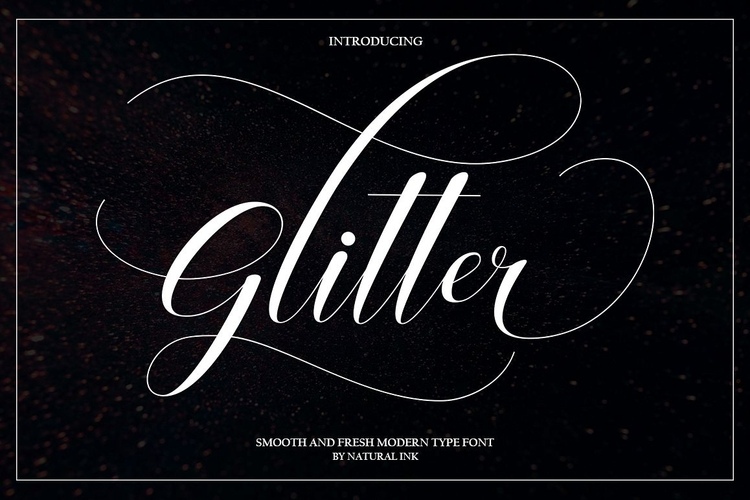
Glitter Script Font
Glitter Script Font is perfect for glamorous event invitations, sparkling celebration materials, luxury beauty brand campaigns, festive party promotions, dazzling fashion marketing, glittery product packaging, shimmering social media graphics, and radiant advertising projects. This dazzling typeface works beautifully in both digital applications and print media where sparkle and glamorous celebration are essential design elements.
What makes Glitter Script Font so exciting is its enchanting capture of celebratory glamour through flowing letterforms that seem to shimmer with the same magical sparkle and festive energy that transforms ordinary moments into extraordinary celebrations. The font features luminous characters with glamorous proportions, sparkling curves, and dazzling details that create an immediate atmosphere of joy, luxury, and celebratory excitement. Its radiant personality and festive inspiration make it ideal for brands seeking to communicate celebration, glamour, and the transformative power of special moments while appealing to audiences who appreciate glittering beauty and festive sophistication.
The Glitter Script Font family includes multiple stylistic variations with different sparkle intensities, along with shimmering alternates and celebratory ornamental elements. Each style maintains the typeface's glamorous character while offering comprehensive character sets including sparkling numerals, festive punctuation marks, and special symbols designed to enhance celebration communications and glittery branding efforts across various glamorous contexts.
This remarkable typeface represents the perfect marriage of celebratory sparkle and contemporary script functionality for event and beauty industries. Whether you're developing party planning identities, creating beauty brand materials, or designing festive celebration promotions, Glitter Script Font Free Download provides the dazzling glamour and versatility needed to create magical moments. The font's sparkling appeal makes it particularly effective for event planners, beauty brands, party suppliers, and businesses celebrating life's most glittering moments and glamorous occasions.
The carefully crafted sparkling details and optimized celebratory performance in Glitter Script Font ensure both magical authenticity and clear communication across all festive applications. Its radiant presence makes it perfect for glamorous branding, celebration marketing materials, and sparkling communications where its full glittery character can create lasting joy and connections with audiences seeking beauty, celebration, and the magical sparkle that makes special moments truly unforgettable.